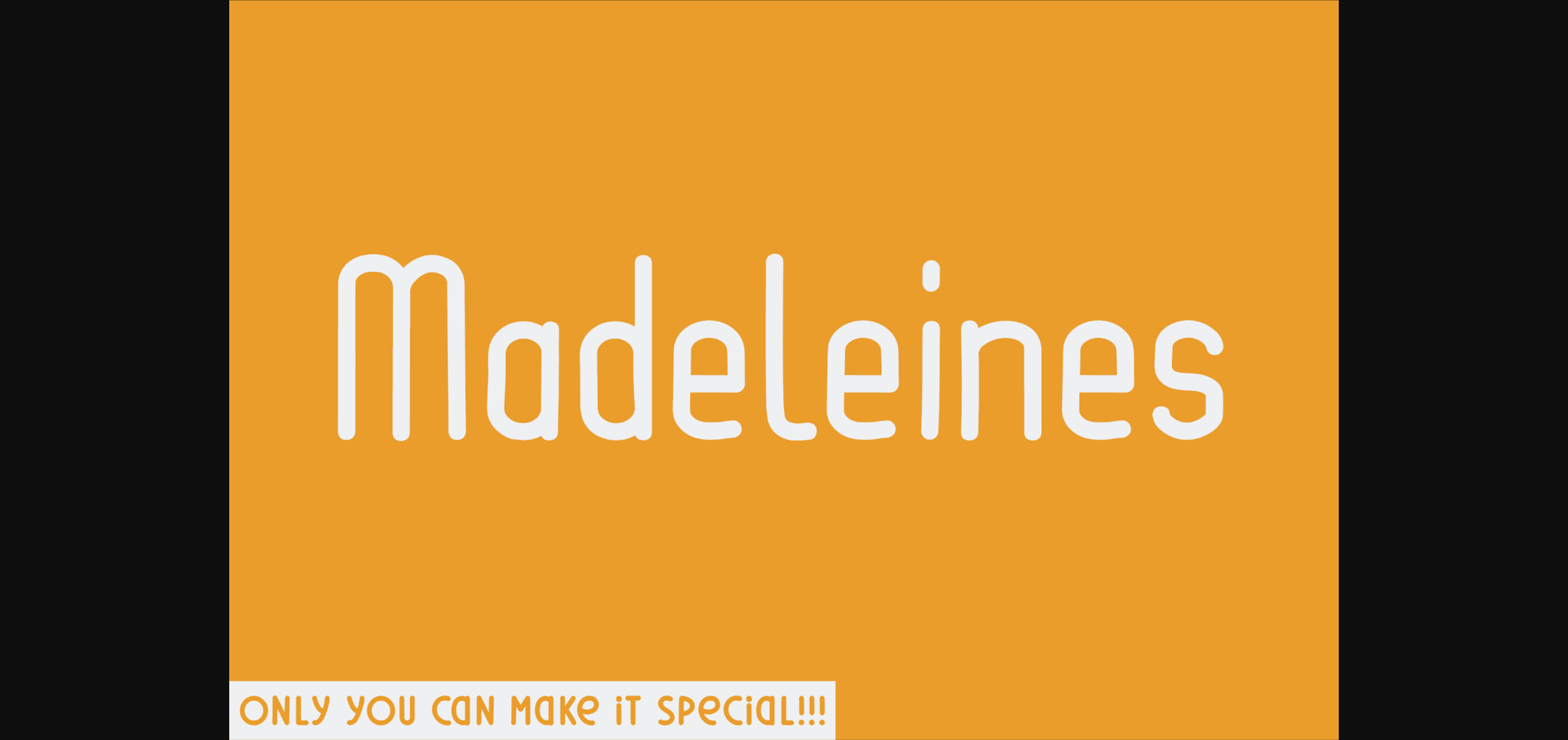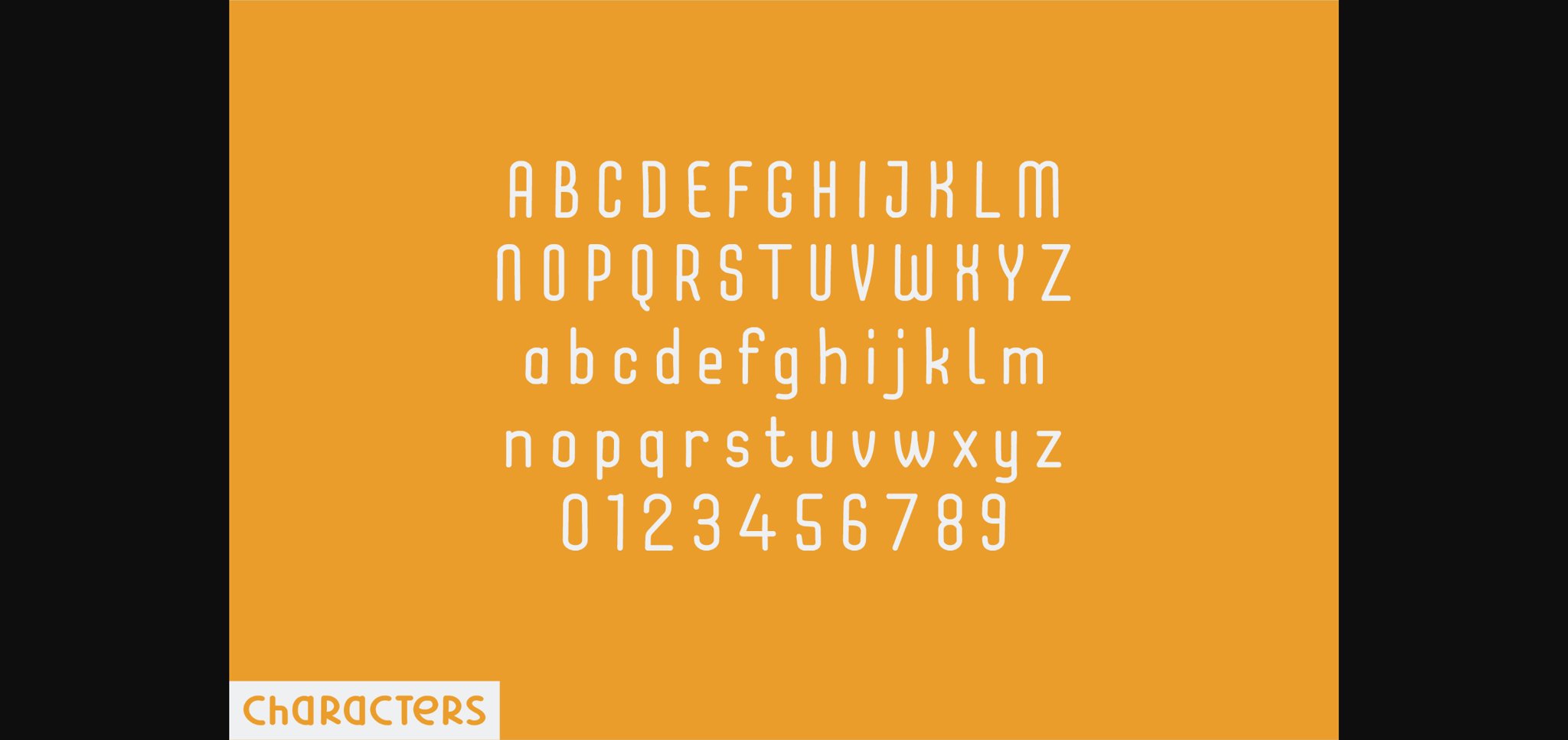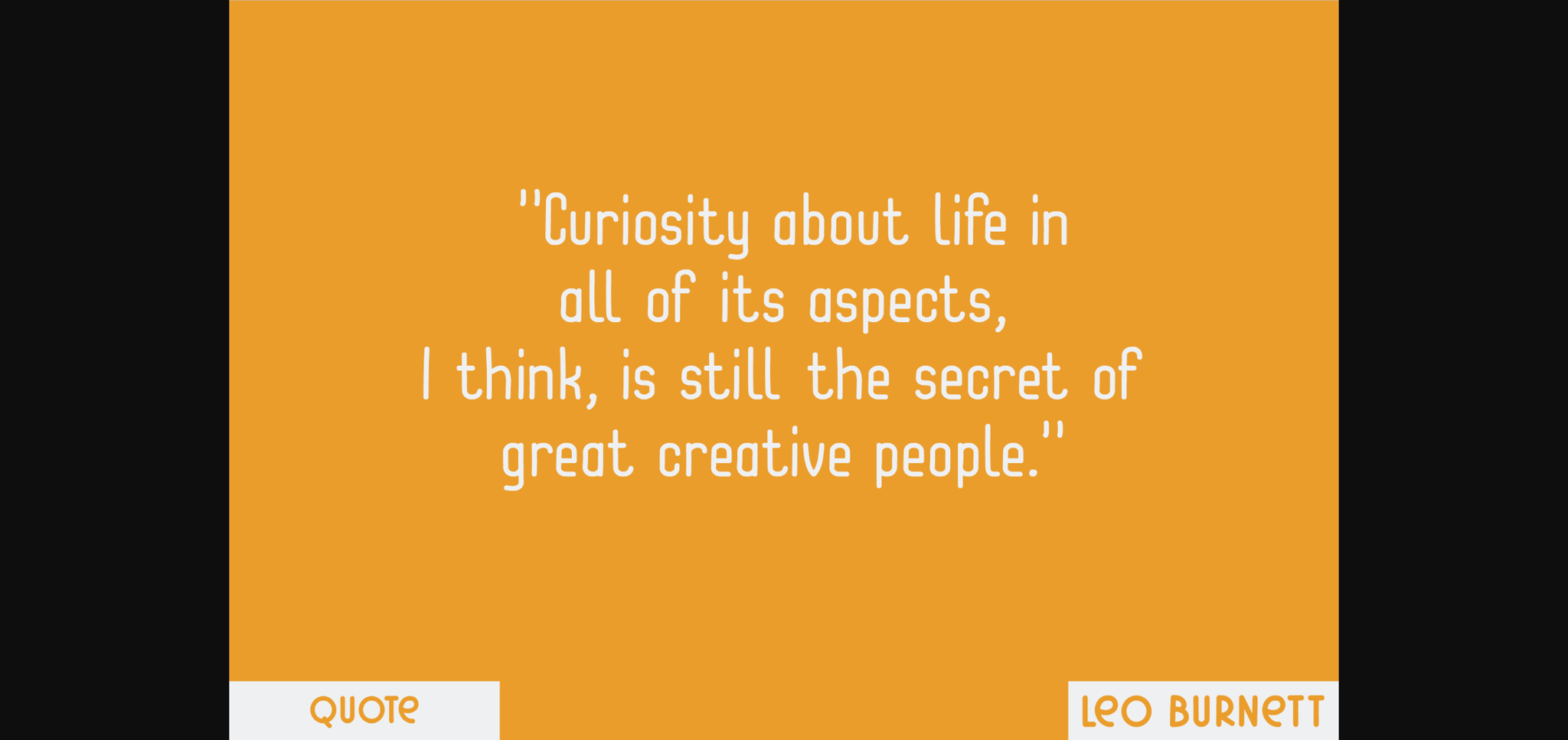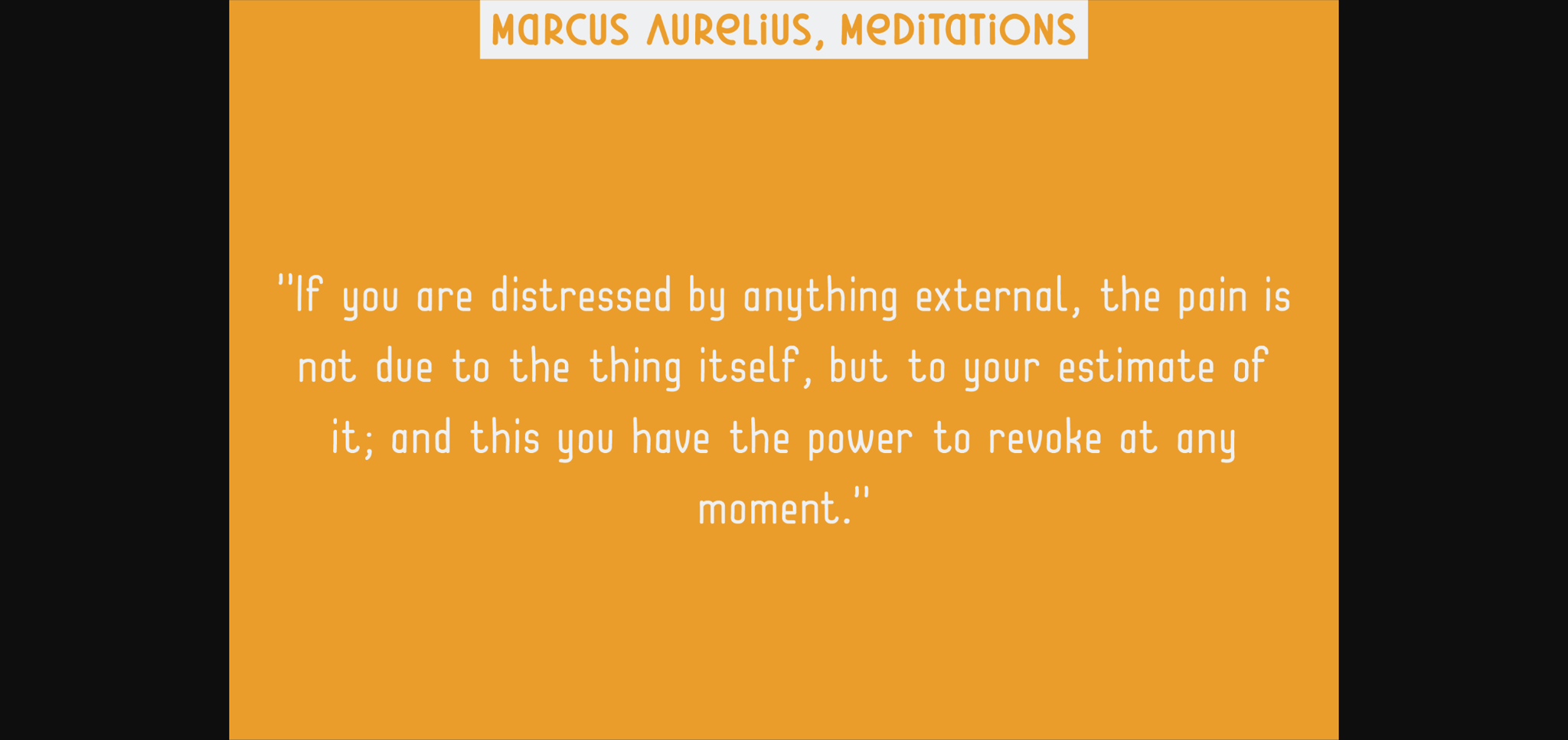
About Madeleines Font
Introducing Madeleines, a tastefully crafted handwritten sans serif font that seamlessly combines uppercase, lowercase, numeric, and functional letters into an aesthetically pleasing suite. Its character manifests in the balanced ends of each letter, sculpting a friendly yet assertive appearance. Perfect for any design endeavor craving a dose of compelling distinctiveness, Madeleines is the font choice that gives your creation an extra edge of unique allure.